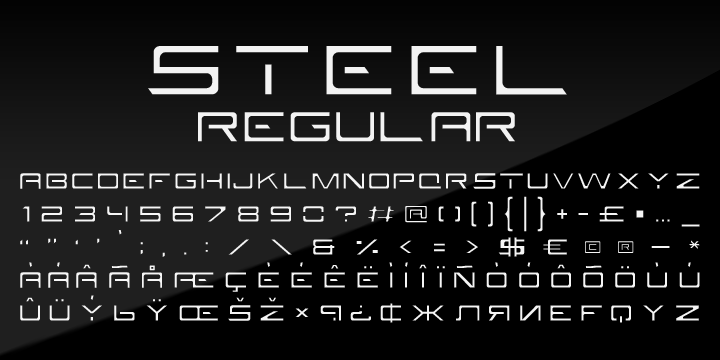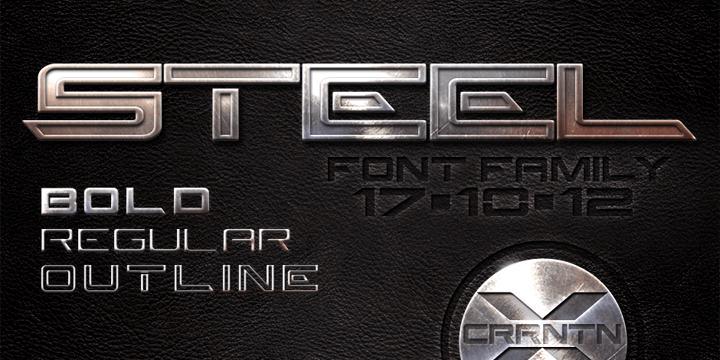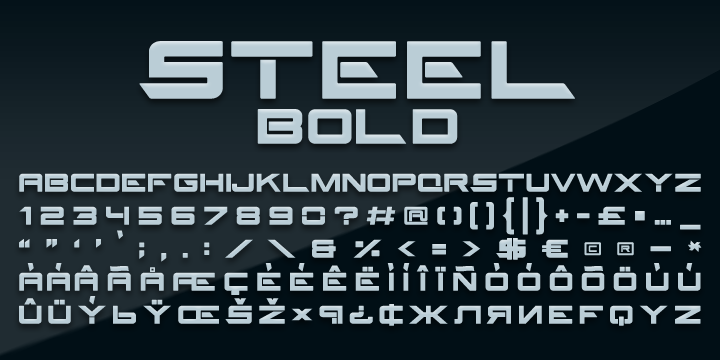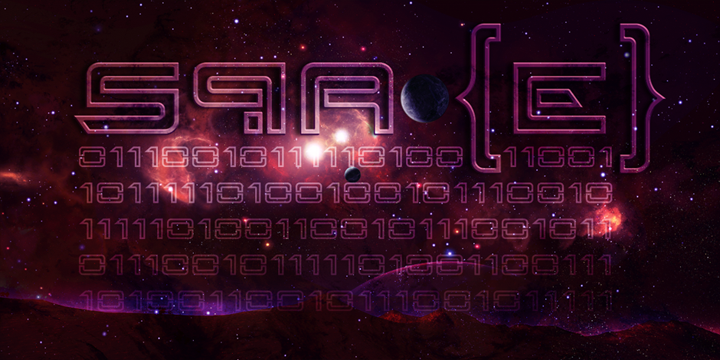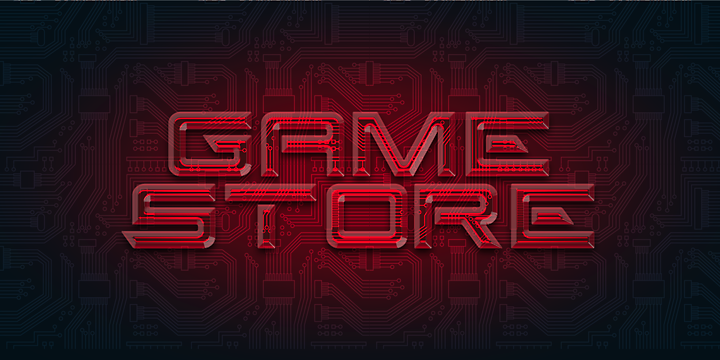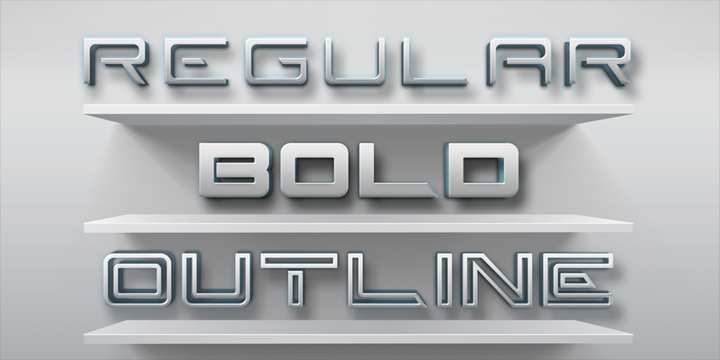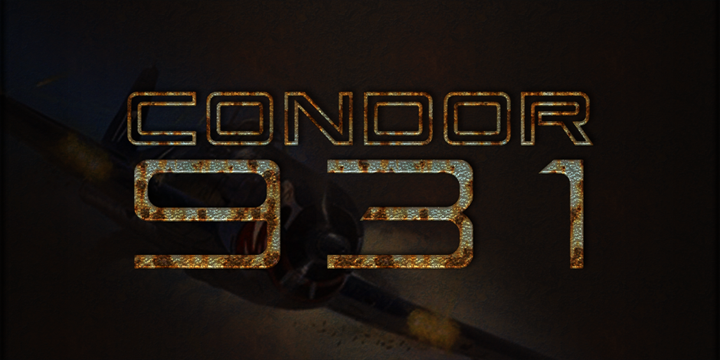
Steel is a display font family. This typeface has three styles and was published by Cerri Antonio.
STEEL regular, outline and bold, is an 3 font system that can be layered in different ways to create a infinite title effects used commonly in poster and 3D logo design. Steel’s layer combinations give you complete control in producing styles like, outline, 3D, beveled. It can be used alone and/or in layered and allows you adjust leading and kerning. Each font contains the similar metrics, so when your title is set, copy and paste-in-place to create layers of different weights/styles to build out your desired effect.
Steel works great in any graphics application that allows you to utilize layers or 3D effects.